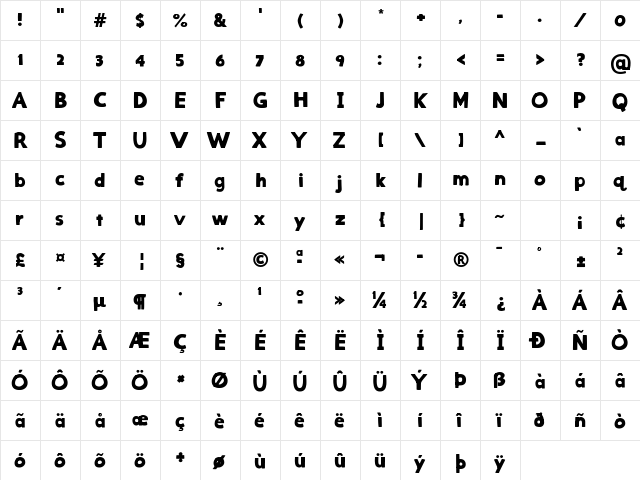
Mini Moment Regular
| Designer | Ali Hamidi |
Design Context for Mini Moment Typeface
Mini Moment offers clean, dependable letterforms without strong stylistic allegiance, making it a practical choice for designers who need flexibility.
Pro Tip: Pair Mini Moment with a font of contrasting weight or personality to build a more expressive typographic hierarchy.